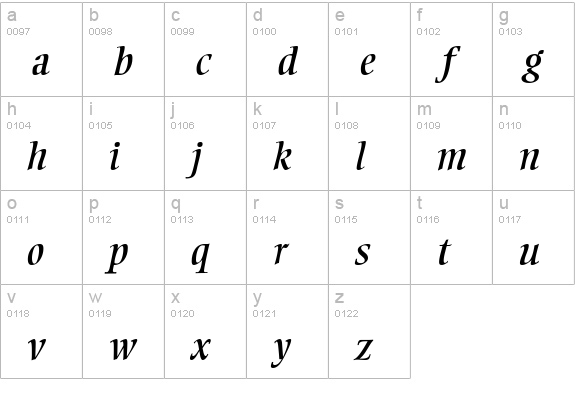
RosarioSSK Italic is a distinctive, italic variant in the RosarioSSK typeface family \xE2\x80\x94 well suited to design and typography projects.
RosarioSSK Italic font is a beautifully crafted typeface that exudes elegance and sophistication. Its slanted design adds a touch of modern flair while maintaining a sense of classic style. The flowing curves and unique letterforms of this font make it perfect for adding a touch of personality to any project. Best of all, RosarioSSK Italic font is completely free to download at FontsMarket.com. Whether you're working on a design project, creating invitations, or simply looking to enhance your written content, this font is a versatile and stylish choice that will elevate your work to the next level. Download RosarioSSK Italic today and let your creativity shine with this stunning typeface.